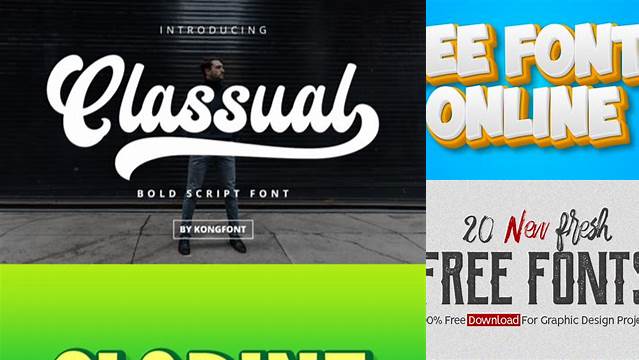
Free Fonts: Design Online Like A Pro
Hey guys! Ever wondered how to make your designs pop without breaking the bank? The secret lies in free fonts! Yeah, you heard right. You can create stunning visuals online using amazing fonts that cost absolutely nothing. Let's dive into how you can design online like a pro using these fantastic resources.
3. How to Identify High-Quality Free Fonts
Not all free fonts are created equal. Some are genuinely awesome, while others... well, let's just say they might not be the best choice for your project. So, how do you spot a high-quality free font? First, look at the kerning – that's the spacing between the letters. Are the letters evenly spaced, or are some awkwardly close together while others are miles apart? Good kerning is a sign of a well-designed font. Next, check out the glyphs. Does the font include a full set of characters, including uppercase and lowercase letters, numbers, punctuation, and symbols? A complete glyph set is essential for professional design work. Also, pay attention to the overall design of the font. Is it consistent and visually appealing? Does it look like it was designed by a professional, or does it look amateurish? Readability is also crucial. Can you easily read the font in different sizes and contexts? If the font is difficult to read, it's probably not a good choice. Finally, look for fonts that come with multiple weights and styles. A font family that includes regular, bold, italic, and other variations will give you more flexibility in your designs. By paying attention to these details, you can identify free fonts that are both high-quality and suitable for your projects.
5. Combining Free Fonts for Impactful Designs
One of the coolest things you can do with free fonts is combining them to create visually interesting and impactful designs. But, it's not as simple as just throwing a bunch of fonts together and hoping for the best. You need to think about how the fonts complement each other. A good rule of thumb is to pair a display font with a more readable body font. Display fonts are those fancy, eye-catching fonts that are great for headlines and titles, but not so great for long paragraphs of text. Body fonts, on the other hand, are designed for readability and are perfect for the main text of your design. When choosing fonts to pair, look for fonts that have contrasting styles but similar proportions. For example, you might pair a bold sans-serif font with a more delicate serif font. Or, you might pair a tall, narrow font with a shorter, wider font. Experiment with different font combinations until you find something that works for your design. Also, pay attention to the overall tone and message of your design. The fonts you choose should reflect the mood and purpose of your design. With a little bit of creativity, you can combine free fonts to create designs that are both visually stunning and effective.
6. Free Fonts for Logos: What to Consider
Creating a logo? Free fonts can be a great way to get started, but there are some specific things you need to consider. First and foremost, make sure the font is legible and scalable. Your logo needs to look good at all sizes, from a tiny favicon to a large billboard. Avoid fonts that are too thin or delicate, as they may disappear at smaller sizes. Also, make sure the font is unique and memorable. You want your logo to stand out from the crowd, so choose a font that reflects your brand's personality and values. Consider using a font that is not overly trendy or common, as you want your logo to have a timeless quality. When using free fonts for a logo, it's often a good idea to customize the font to make it even more unique. You can adjust the kerning, tracking, or even modify the shapes of the letters to create a custom look. Just be careful not to overdo it – you still want the font to be recognizable. Finally, always check the font's license to make sure you're allowed to use it for commercial purposes. Some free fonts are only free for personal use, and you'll need a commercial license to use them in a logo. By keeping these considerations in mind, you can use free fonts to create a logo that is both professional and affordable.
7. Using Free Fonts for Website Design
Your website's typography is super important for both its look and how easy it is to read. Free fonts can be a great resource, but you need to choose them carefully. First, make sure the fonts are web-safe. This means they should be compatible with all major web browsers and operating systems. Google Fonts is a great place to find web-safe free fonts. When choosing free fonts for your website, consider the overall design and branding of your site. The fonts should complement the colors, images, and other design elements of your site. Use a font that reflects your brand's personality and values. Also, pay attention to the font size and line height. Make sure the text is easy to read on all devices, from desktops to smartphones. Use headings, subheadings, and bullet points to break up large blocks of text and make your website more scannable. Don't be afraid to experiment with different font combinations to see what looks best. A common approach is to use one font for headings and another font for body text. Just make sure the fonts you choose are legible and visually appealing. By following these tips, you can use free fonts to create a website that is both beautiful and user-friendly.
8. Creating Social Media Graphics with Free Fonts
Social media is all about grabbing attention, and free fonts can help you do just that. When creating social media graphics, choose fonts that are bold, eye-catching, and easy to read. Use fonts that reflect the tone and message of your content. If you're creating a fun, playful graphic, choose a font that is whimsical and lighthearted. If you're creating a serious, informative graphic, choose a font that is professional and authoritative. Also, pay attention to the size and placement of the text. Make sure the text is large enough to be easily read on small screens. Use contrasting colors to make the text stand out from the background. When using free fonts in your social media graphics, don't be afraid to experiment with different effects and styles. Try adding shadows, outlines, or gradients to make the text more visually interesting. Use different fonts for headings and body text to create a dynamic and engaging design. Just be careful not to overcrowd your graphics with too much text. Keep the message concise and to the point. By using free fonts creatively, you can create social media graphics that grab attention and get your message across.
9. Free Fonts for Print Materials: What Works Best?
Designing for print is a whole different ball game than designing for the web. When choosing free fonts for print materials, you need to consider factors like resolution, paper type, and printing process. First, make sure the font is legible at the intended print size. Some fonts that look great on screen may become blurry or pixelated when printed. Choose fonts that are designed for print, with clean, crisp lines and good readability. Also, consider the paper type you'll be using. Some fonts may look better on glossy paper, while others may look better on matte paper. Experiment with different fonts and paper types to see what works best. When using free fonts for print, it's often a good idea to use vector-based fonts, such as OpenType fonts (.otf). Vector fonts are scalable and will maintain their quality at any size. Avoid using raster-based fonts, such as TrueType fonts (.ttf), as they may become pixelated when printed at larger sizes. Finally, always proofread your print materials carefully before sending them to the printer. Check for any typos, errors, or formatting issues. By choosing the right free fonts and paying attention to these details, you can create print materials that look professional and polished.
10. Mastering Typography with Free Fonts
Typography is the art and technique of arranging type to make written language legible, readable, and appealing. And guess what? You can master typography using free fonts! Start by learning the basic principles of typography, such as kerning, tracking, leading, and hierarchy. Kerning is the spacing between individual letters, tracking is the overall spacing between all the letters in a word or phrase, and leading is the spacing between lines of text. Hierarchy is the arrangement of text in a way that guides the reader's eye and emphasizes important information. When using free fonts, pay attention to these details to create typography that is both visually appealing and easy to read. Experiment with different font sizes, weights, and styles to create contrast and visual interest. Use headings, subheadings, and bullet points to break up large blocks of text and make your content more scannable. Don't be afraid to break the rules and try new things, but always make sure your typography is legible and serves its intended purpose. By mastering the principles of typography, you can use free fonts to create designs that are both beautiful and effective.
11. The Psychology of Fonts: Choosing the Right Free Font
Did you know that fonts have their own psychology? The font you choose can actually influence how people perceive your message. For example, serif fonts like Times New Roman often convey a sense of tradition, authority, and reliability. Sans-serif fonts like Arial tend to be more modern, clean, and approachable. Script fonts can be elegant, feminine, and romantic, while display fonts can be bold, playful, and attention-grabbing. When choosing free fonts for your projects, consider the message you want to convey and the audience you're trying to reach. If you're creating a design for a financial institution, you might choose a serif font to convey a sense of stability and trustworthiness. If you're creating a design for a tech startup, you might choose a sans-serif font to convey a sense of innovation and modernity. Think about the emotions you want to evoke and choose a font that aligns with those emotions. By understanding the psychology of fonts, you can use free fonts to create designs that are both visually appealing and emotionally resonant.
12. Free Font Trends: What's Hot Right Now
Just like fashion, font trends come and go. What's popular one year may be outdated the next. If you want to keep your designs looking fresh and modern, it's important to stay up-to-date on the latest free font trends. Some current trends include bold, geometric sans-serif fonts, vintage-inspired serif fonts, and hand-drawn script fonts. Bold, geometric sans-serif fonts are perfect for creating a clean, modern look. Vintage-inspired serif fonts are great for adding a touch of nostalgia and elegance to your designs. Hand-drawn script fonts are ideal for creating a personal, handmade feel. When using trendy free fonts, be careful not to overdo it. Use them sparingly and in combination with more classic fonts to avoid creating a design that looks dated in a few years. Also, remember that trends are just trends. It's more important to choose fonts that are appropriate for your project and reflect your brand's personality than to simply follow the latest trends. By staying informed about free font trends and using them judiciously, you can keep your designs looking fresh and relevant.
13. Creating Font Pairings That Work
Choosing the right font pairing can make or break your design. A good font pairing will enhance the overall look and feel of your design, while a bad font pairing can make your design look amateurish and unprofessional. When creating font pairings, start by choosing a primary font and a secondary font. The primary font will be used for headings, titles, and other important elements, while the secondary font will be used for body text and other supporting elements. Look for fonts that have contrasting styles but complementary characteristics. For example, you might pair a bold sans-serif font with a more delicate serif font, or a tall, narrow font with a shorter, wider font. Also, pay attention to the font's x-height, which is the height of the lowercase letters. Fonts with similar x-heights tend to pair well together. Experiment with different font combinations until you find something that works for your design. Use online tools like FontPair and Typewolf to get inspiration and see examples of successful font pairings. By following these tips, you can create font pairings that are both visually appealing and effective.
14. Customizing Free Fonts to Make Them Unique
Want to make your free fonts truly unique? Try customizing them! There are several ways to customize free fonts to create a custom look. You can adjust the kerning, tracking, or leading to fine-tune the spacing between letters and lines. You can add effects like shadows, outlines, or gradients to make the text more visually interesting. You can even modify the shapes of the letters themselves using a font editor like FontForge or Glyphs. When customizing free fonts, be careful not to overdo it. Small changes can make a big difference, so start with subtle adjustments and gradually increase the intensity of the effects. Also, make sure your customizations don't compromise the font's legibility or readability. The goal is to enhance the font's appearance, not to make it unrecognizable. If you're not comfortable using a font editor, you can also customize free fonts using your graphic design software. Most graphic design programs offer tools for adjusting the size, color, and alignment of text, as well as adding effects like shadows and outlines. By experimenting with different customization techniques, you can transform free fonts into unique and personalized design elements.
15. Avoiding Common Mistakes When Using Free Fonts
Using free fonts can be a great way to save money and add visual interest to your designs, but it's important to avoid common mistakes. One common mistake is using too many fonts in a single design. Stick to a maximum of two or three fonts to avoid creating a cluttered and confusing look. Another mistake is choosing fonts that are difficult to read. Make sure your fonts are legible at all sizes and in all contexts. Avoid using fonts that are too thin, too decorative, or too stylized. Another mistake is ignoring the font's license. Always check the license to make sure you're allowed to use the font for your intended purpose. Some free fonts are only free for personal use, and you'll need a commercial license to use them in a logo or other commercial project. Another mistake is using fonts that are outdated or overused. Choose fonts that are fresh, modern, and unique to make your designs stand out. By avoiding these common mistakes, you can use free fonts to create designs that are both professional and effective.
16. Free Fonts for Different Design Styles (e.g., Minimalist, Vintage)
Different design styles call for different types of free fonts. For a minimalist design, you'll want to choose clean, simple sans-serif fonts with good readability. Think along the lines of Open Sans, Lato, or Montserrat. These fonts offer a modern and uncluttered feel, perfect for minimalist aesthetics. For a vintage design, consider serif fonts with a classic, slightly distressed look. Examples include Playfair Display, Lora, or Bitter. These fonts evoke a sense of nostalgia and timelessness. If you're working on a modern design, opt for bold, geometric sans-serif fonts like Bebas Neue, Raleway, or Futura. These fonts provide a strong, contemporary vibe. For a playful and whimsical design, try hand-drawn script fonts or quirky display fonts. Some great options are Amatic SC, Indie Flower, or Pacifico. These fonts add a touch of personality and fun to your designs. By selecting free fonts that align with your design style, you can create a cohesive and visually appealing final product. Remember to consider the overall tone and message of your design when choosing your fonts.
17. Optimizing Free Fonts for Readability
Readability is key when using free fonts, especially for body text. To optimize free fonts for readability, start by choosing fonts with a clear and simple design. Avoid fonts that are too decorative or stylized, as they can be difficult to read in long paragraphs. Pay attention to the font's x-height, which is the height of the lowercase letters. Fonts with a larger x-height tend to be more readable. Adjust the font size and line height to create a comfortable reading experience. A good rule of thumb is to use a font size of at least 16 pixels for body text and a line height that is 1.5 to 2 times the font size. Also, consider the contrast between the text and the background. Make sure the text is easily distinguishable from the background color. Use headings, subheadings, and bullet points to break up large blocks of text and make your content more scannable. By optimizing free fonts for readability, you can ensure that your message is clear and easy to understand.
18. Using Free Fonts for Branding: Consistency is Key
When using free fonts for branding, consistency is absolutely key. Your fonts should be consistent across all your branding materials, from your logo and website to your business cards and social media graphics. Choose a set of fonts that reflect your brand's personality and values, and stick with them. Avoid using too many different fonts, as this can create a disjointed and unprofessional look. Consider creating a style guide that outlines your brand's font choices, along with other branding elements like colors, logos, and imagery. This will help ensure consistency across all your marketing materials. Also, make sure your fonts are legible and readable. Your branding materials should be easy to read and understand, regardless of the font you choose. By maintaining consistency in your font choices, you can create a strong and recognizable brand identity.
19. The Best Free Font Alternatives to Popular Paid Fonts
Want to achieve a similar look to popular paid fonts without spending any money? There are plenty of best free font alternatives available. For example, if you love the look of Helvetica, try using Arial or Open Sans. These fonts offer a similar clean and modern aesthetic. If you're a fan of Garamond, consider using EB Garamond or Crimson Text. These fonts provide a classic and elegant feel. If you like the look of Futura, try using Montserrat or Raleway. These fonts offer a geometric and contemporary vibe. For a free alternative to Proxima Nova, check out Nunito or Lato. These fonts provide a versatile and readable option. By exploring free font alternatives, you can achieve the same visual impact as paid fonts without breaking the bank. Just be sure to choose fonts that are well-designed and legible, and always check the font's license before using it in your projects.
20. Free Fonts and SEO: Making Your Website More Readable
The free fonts you choose can impact your website's SEO by affecting readability and user experience. Search engines like Google prioritize websites that are easy to read and navigate. By selecting legible and visually appealing free fonts, you can improve your website's readability and keep visitors engaged. Use headings, subheadings, and bullet points to break up large blocks of text and make your content more scannable. Choose font sizes and line heights that are comfortable to read on all devices. Also, consider the contrast between the text and the background. Make sure the text is easily distinguishable from the background color. When using free fonts, avoid using too many different fonts, as this can create a cluttered and confusing look. Stick to a maximum of two or three fonts to maintain a clean and professional design. By optimizing your website's typography for readability, you can improve your SEO and attract more visitors.
21. Mobile-Friendly Free Fonts: Considerations for Small Screens
When choosing free fonts, remember to consider how they'll appear on mobile devices. Mobile-friendly free fonts should be legible and readable on small screens. Opt for fonts with a clear and simple design, avoiding those that are overly decorative or stylized. Pay attention to the font's x-height, as fonts with a larger x-height tend to be more readable on mobile devices. Adjust the font size and line height to create a comfortable reading experience. A good rule of thumb is to use a font size of at least 16 pixels for body text and a line height that is 1.5 to 2 times the font size. Also, ensure there's sufficient contrast between the text and background for easy readability in various lighting conditions. Test your website or app on different mobile devices to ensure your fonts look good across all screen sizes and resolutions. By selecting mobile-friendly free fonts, you can create a positive user experience for your mobile audience.
22. Free Fonts for E-commerce: Building Trust and Conversions
Selecting the right free fonts is crucial for building trust and driving conversions on your e-commerce website. Use fonts that convey professionalism, reliability, and credibility. Serif fonts like Lora or Merriweather can create a sense of tradition and trustworthiness, while clean sans-serif fonts like Open Sans or Lato offer a modern and approachable feel. Ensure your fonts are legible and readable, as poor typography can deter potential customers. Use clear headings, subheadings, and bullet points to organize product information and make it easy to scan. Pay attention to the font size and line height to create a comfortable reading experience. Also, consider the overall design and branding of your e-commerce website. Your fonts should complement your color scheme, logo, and imagery. By choosing free fonts that align with your brand and optimize readability, you can build trust and increase conversions on your e-commerce website.
23. Free Fonts for Presentations: Engaging Your Audience
When creating presentations, free fonts can play a significant role in engaging your audience. Choose fonts that are clear, legible, and visually appealing. Avoid using fonts that are too small, too thin, or too decorative, as they can be difficult to read on a large screen. Opt for fonts with a strong visual hierarchy, so your audience can easily follow along with your presentation. Use different font sizes, weights, and colors to emphasize key points and create visual interest. Consider using sans-serif fonts for headings and titles, as they tend to be more attention-grabbing, and serif fonts for body text, as they are generally easier to read in longer paragraphs. Test your presentation on a large screen before presenting it to your audience to ensure your free fonts look good and are easy to read from a distance. By carefully selecting and using free fonts, you can create presentations that are both informative and engaging.
24. Free Fonts for Resumes: Making a Professional Impression
The free fonts you choose for your resume can make a significant difference in the impression you create. Select fonts that are professional, clean, and easy to read. Avoid using fonts that are too casual, decorative, or stylized, as they can make your resume look unprofessional. Popular choices for resumes include sans-serif fonts like Arial, Calibri, and Lato, as well as serif fonts like Times New Roman and Garamond. Use a consistent font throughout your resume, and avoid using more than two different fonts. Pay attention to the font size and line height to ensure your resume is easy to read. A good rule of thumb is to use a font size of 11 or 12 points for body text and a line height that is 1.15 to 1.5 times the font size. Also, make sure your resume is free of typos and grammatical errors. Proofread it carefully before submitting it to potential employers. By selecting the right free fonts and paying attention to detail, you can create a resume that makes a positive and professional impression.
25. Free Fonts for Newsletters: Capturing Reader Attention
To capture reader attention with newsletters, choosing the right free fonts is essential. Legibility and readability should be your top priorities. Select fonts that are clear, clean, and easy to read on both desktop and mobile devices. Use a font size that is large enough to be read comfortably without zooming in. Consider using a sans-serif font for headings and titles, as they tend to be more attention-grabbing, and a serif font for body text, as they are generally easier to read in longer paragraphs. Pay attention to the line height and letter spacing to create a comfortable reading experience. Use visuals such as images or illustrations to break up the text and make your newsletter more engaging. Also, make sure your newsletter is well-organized and easy to navigate. Use clear headings, subheadings, and bullet points to guide readers through the content. By carefully selecting and using free fonts, you can create newsletters that capture reader attention and keep them coming back for more.
26. Using Free Fonts in Video Editing: Titles and Lower Thirds
When creating videos, free fonts are crucial for titles and lower thirds. Select fonts that are clear, legible, and visually appealing. They should also complement the video's overall style and tone. Avoid using fonts that are too thin, too decorative, or too stylized, as they can be difficult to read on a screen. Opt for fonts that are specifically designed for video, such as those with a high x-height and good letter spacing. Use different fonts for titles and lower thirds to create visual interest and hierarchy. Consider using a bold sans-serif font for titles and a more readable serif font for lower thirds. Pay attention to the font size and placement to ensure your titles and lower thirds are easy to read and don't obscure important elements in the video. Also, make sure your fonts are compatible with your video editing software. By carefully selecting and using free fonts, you can create titles and lower thirds that enhance the quality and professionalism of your videos.
27. Creating Font Mood Boards for Design Inspiration
Creating a font mood board is a fantastic way to find design inspiration using free fonts. Gather different fonts that appeal to you and represent the mood or theme you're aiming for in your project. Include a variety of font styles, such as serif, sans-serif, script, and display fonts. Experiment with different font sizes, weights, and colors to see how they interact with each other. Arrange the fonts on a single page or board to create a visual representation of your design concept. Add images, colors, and textures that complement the fonts to further enhance the mood and theme. Use online tools like Pinterest or Canva to create digital font mood boards. Refer to your font mood board throughout your design process to stay focused and inspired. This process helps you visualize how different free fonts can come together to create a cohesive and impactful design.
28. Legal Considerations: What You Need to Know About Free Font Licenses
When dealing with free fonts, always check the license. The license outlines how you can use the font, whether for personal or commercial purposes. Some licenses allow commercial use but require attribution, while others restrict modification or redistribution. Google Fonts typically offers open-source licenses, making them safe for most projects. Sites like DaFont have fonts with varying licenses, so check each one. Read the license file included with the font download. Look for terms like "personal use," "commercial use," "GPL," or "SIL Open Font License." Contact the font designer or website if unsure about the license. Using a font without the proper license can lead to legal issues. Understanding these legal considerations is crucial to using free fonts safely and legally.
29. The Future of Free Fonts: Trends and Predictions
The future of free fonts looks bright, with trends pointing towards greater accessibility and innovation. Expect to see more variable fonts, which offer flexibility in weight and style within a single file. AI-driven font design tools will emerge, making font creation more accessible to non-designers. Collaborative font projects will become more common, with designers contributing to open-source font libraries. The rise of virtual and augmented reality will create new demands for fonts optimized for digital environments. Sustainability will influence font design, with eco-friendly practices and materials being prioritized. Additionally, expect a greater emphasis on inclusivity and diversity in font design, with support for a wider range of languages and scripts. As technology advances, free fonts will continue to evolve, offering designers and creators more options and flexibility.
30. Contributing to the Free Font Community: How to Give Back
Giving back to the free font community is a rewarding way to support design and accessibility. If you're a designer, consider creating and sharing your own fonts under an open-source license. Contribute to existing font projects by improving glyphs, adding language support, or fixing bugs. Offer your expertise by providing feedback and testing new free fonts. Donate to organizations that support font development and education. Promote free fonts by using them in your projects and sharing your designs online. Advocate for open-source font licensing to encourage collaboration and innovation. By contributing your time, skills, and resources, you can help ensure the continued growth and availability of free fonts for everyone. Every little bit helps in keeping this valuable resource alive and thriving.